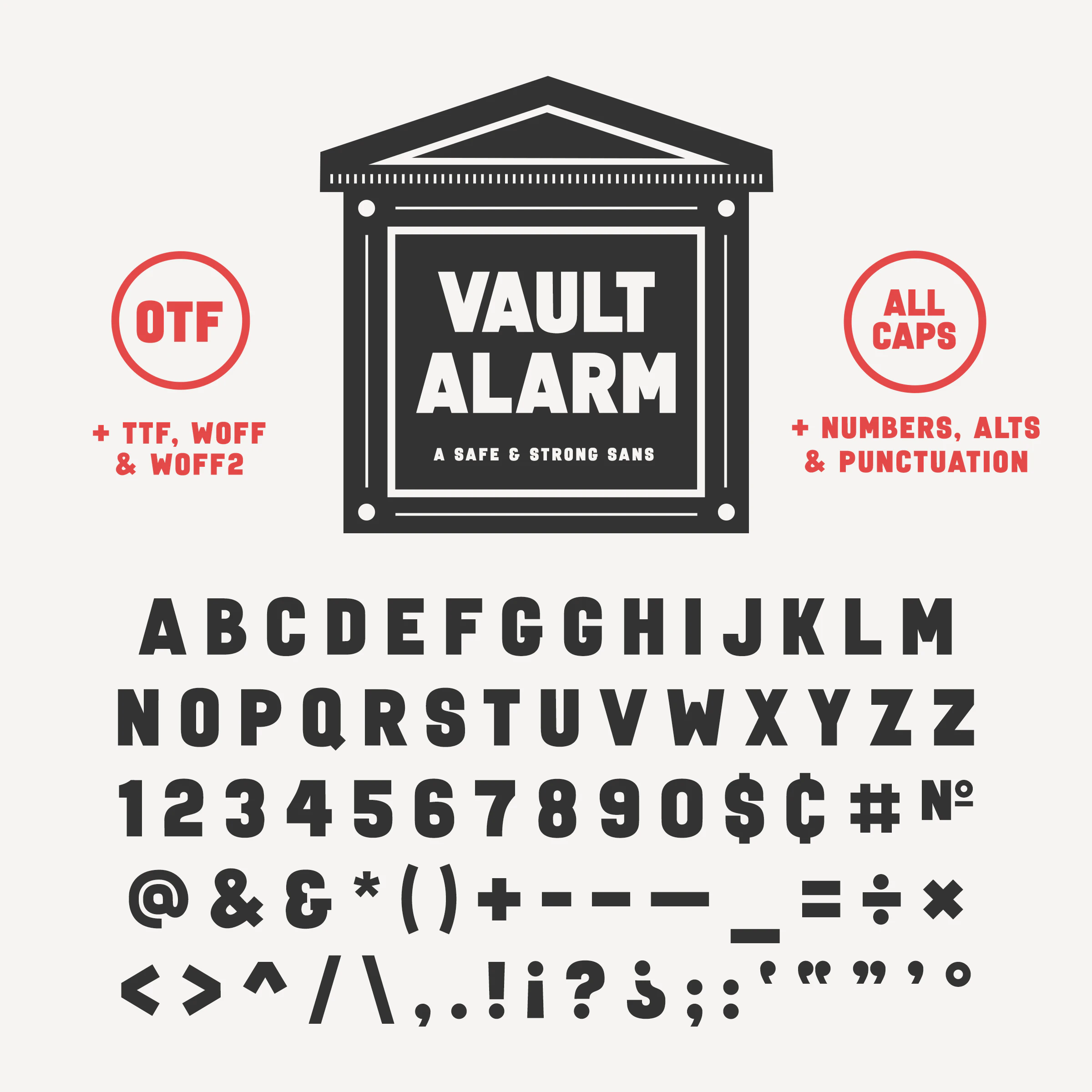
Vault Alarm Font
A strong & safe sans based on New England bank lettering.
For years, I’ve walked by several of these “Vault Alarm” boxes on the side of old New England banks. “Someday, I’d love to turn that lettering into a font”, I’d say. I finally made that a reality! Vault Alarm is a chunky, quirky, display sans-serif.